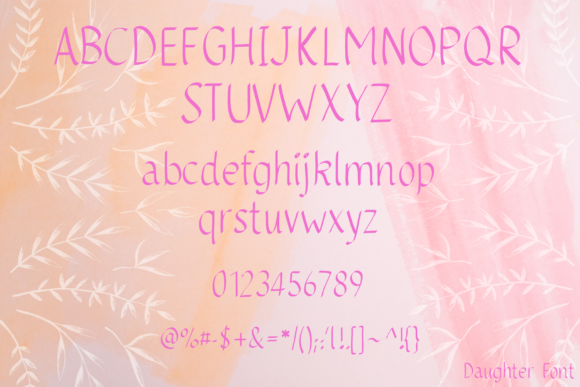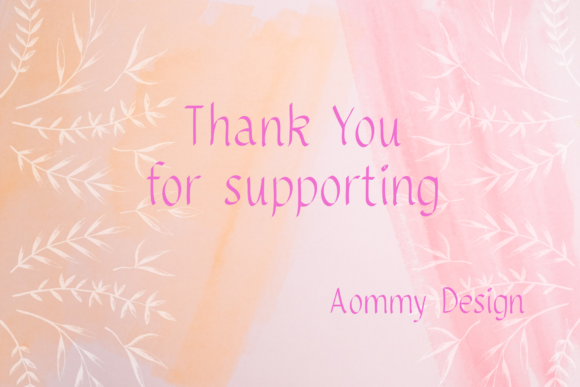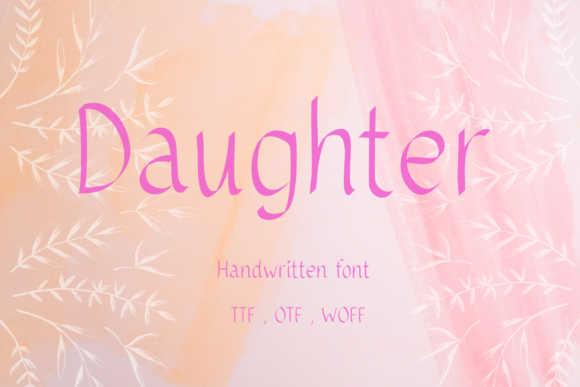
Introducing Daughter Font: The Ultimate Handwritten Font for Creative Projects
Are you tired of using the same old fonts for your design projects? Look no further than Daughter Font, a unique handwritten font that is sure to add a touch of personality to your work. With its casual and relaxed vibe, Daughter Font is perfect for a wide range of applications, from logos and branding to greeting cards, posters, magazines, social media, planner prints, and websites.
What Makes Daughter Font So Special?
Daughter Font is a one-of-a-kind handwritten font that stands out from the crowd. Its casual and relaxed vibe gives it a friendly and approachable feel, making it perfect for designers and crafters who want to add a personal touch to their work. The font features a unique and elegant style that is both modern and timeless, making it suitable for a wide range of design projects.
When it comes to creating a logo or brand identity, the font you choose can make all the difference. Daughter Font is an excellent choice for logos and branding because of its unique and memorable style. The font is easy to read and understand, making it perfect for use in logos, taglines, and other branding materials. Whether you’re creating a logo for a new business or rebranding an existing one, Daughter Font is sure to make a lasting impression.
Ideal for Greeting Cards and Stationery
Daughter Font is also perfect for creating greeting cards, invitations, and other stationery items. The font’s casual and relaxed vibe makes it ideal for use in personal and professional correspondence. Whether you’re creating a birthday card, wedding invitation, or thank-you note, Daughter Font is sure to add a touch of elegance and sophistication to your design.
Great for Posters and Magazines
Posters and magazines are a great way to showcase your creativity and style, and Daughter Font is the perfect font to use. The font’s unique and elegant style makes it perfect for use in headlines, subheadings, and body copy. Whether you’re creating a poster for a concert, festival, or sale, or designing a magazine for a client, Daughter Font is sure to make your design stand out.
Social Media and Website Friendly
In today’s digital age, having a strong online presence is crucial for businesses and individuals alike. Daughter Font is optimized for use on social media and websites, making it easy to use in a variety of digital applications. The font is clear and easy to read, even on small screens, making it perfect for use in social media posts, website headers, and other digital design elements.
Planner Prints and Crafts
Daughter Font is also perfect for use in planner prints and crafts. The font’s casual and relaxed vibe makes it ideal for use in bullet journaling, scrapbooking, and other paper crafts. Whether you’re creating a custom planner, journal, or scrapbook, Daughter Font is sure to add a touch of personality and style to your design.
Why Choose Daughter Font?
So why choose Daughter Font over other fonts? Here are just a few reasons:
- Unique and memorable style: Daughter Font has a one-of-a-kind style that is sure to make your design stand out.
- Casual and relaxed vibe: The font’s friendly and approachable feel makes it perfect for a wide range of design projects.
- Easy to read and understand: Daughter Font is clear and easy to read, even on small screens.
- Optimized for digital use: The font is optimized for use on social media and websites, making it easy to use in a variety of digital applications.
| Font Name | Daughter Font |
| Author | Aommy Design |
In conclusion, Daughter Font is a unique and versatile handwritten font that is perfect for a wide range of design projects. With its casual and relaxed vibe, elegant style, and ease of use, Daughter Font is sure to become a favorite among designers and crafters. Whether you’re creating a logo, greeting card, poster, or website, Daughter Font is the perfect choice.